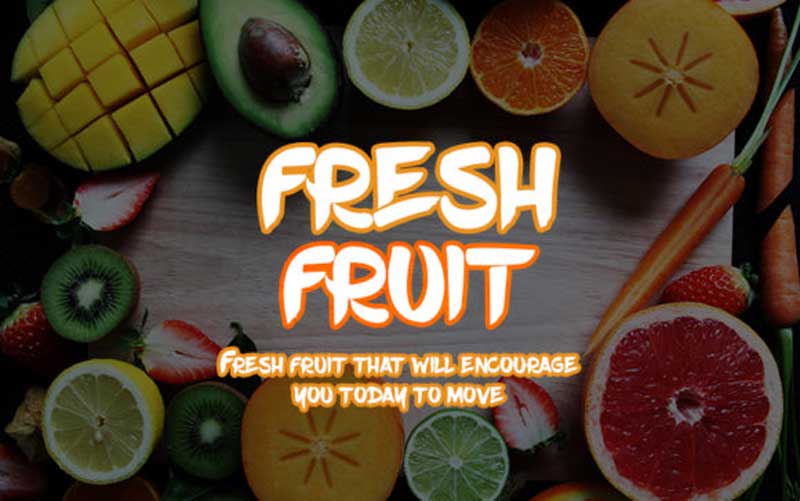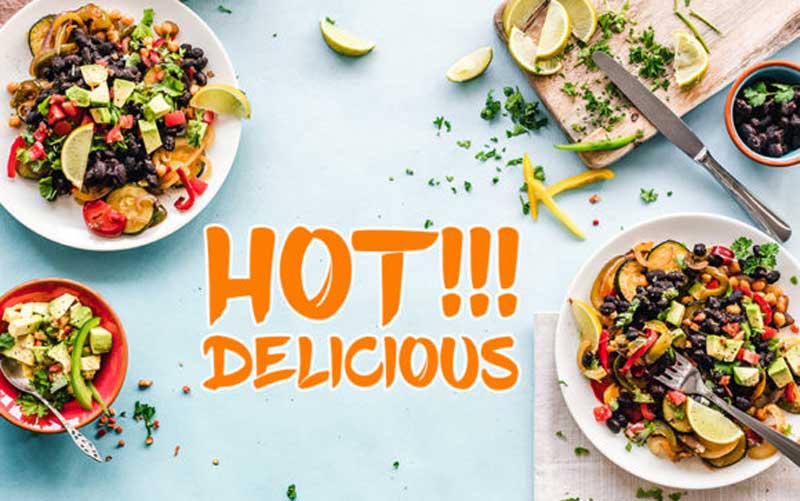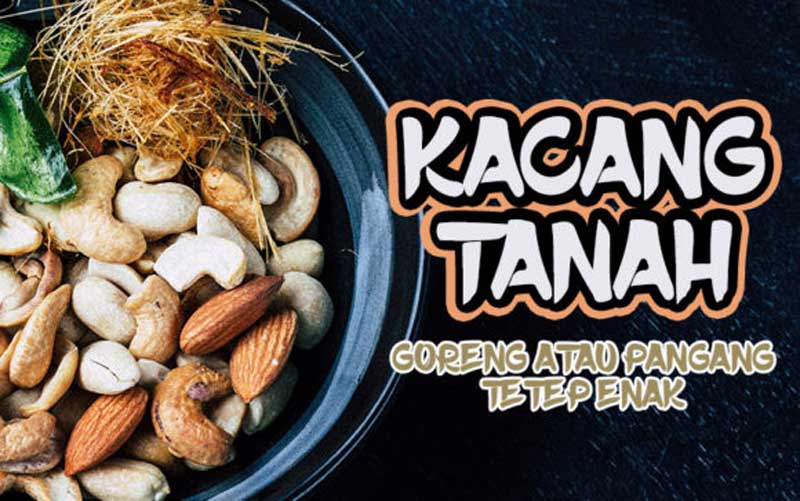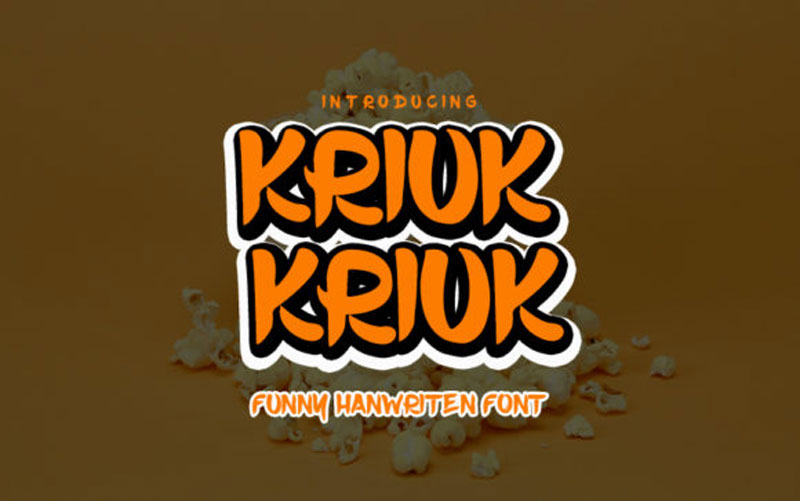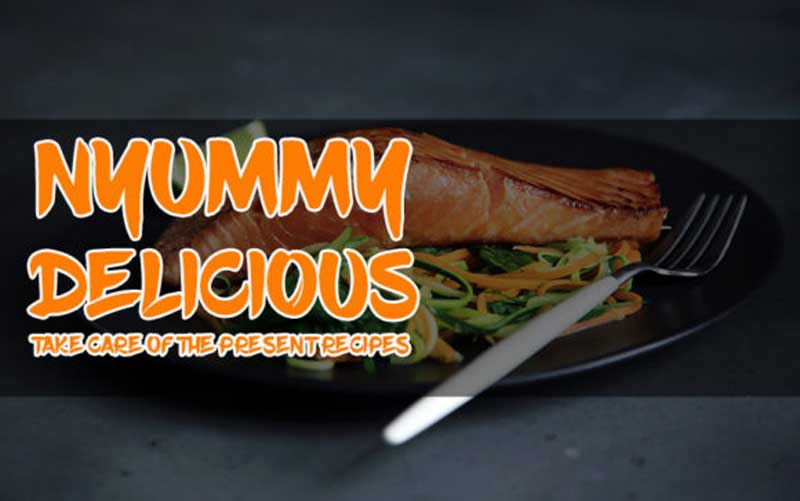
Kriuk Kriuk Font Family
Download Free Creativefabrica- Kriuk Kriuk Font Family. Kriuk Kriuk embodies fun, quirkiness and authenticity. This enchanting handwritten font will turn any creative idea into a true standout. Also Checkout Garcedo Display Serif Font.